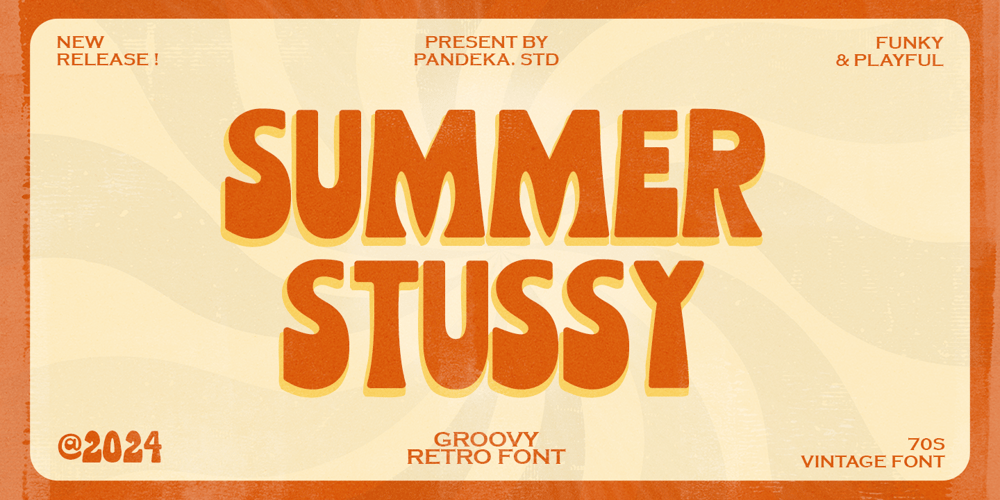
Summer Stussy Font Family was designed by Sagara Nararya and published by Pandeka Studio. Summer Stussy contains 1 styles and family package options. Say hello to Summer Stussy! Inspire some retro funky with an all-caps, 70’s inspired font complete with groovy bellbottoms!Summer Stussy can be easily paired with some graphic elements (illustration, photography) this font is perfect for, logotype, branding, title, and packaging.What’s Included? Summer Stussy Main Files Unique Gylph Letters Instructions (Access special characters in all apps, even in Cricut Design) Accessible in Adobe Illustrator, Adobe Photoshop, Microsoft Word even Canva! PUA Encoded Characters. Fully accessible without additional design software Language Support: Danish, English, Estonian, Filipino, Finnish, French, Friulian, Galician, German, Gusii, Indonesian, Irish, Italian, Luxembourgish, Norwegian BokmÃ¥l, Norwegian Nynorsk, Nyankole, Oromo, Portuguese, Romansh, Rombo, Spanish, Swedish, Swiss-German, Uzbek (Latin)Feel free to follow, like and share. Thanks so much for checking out my shop!Have a great day!Pandeka Studio